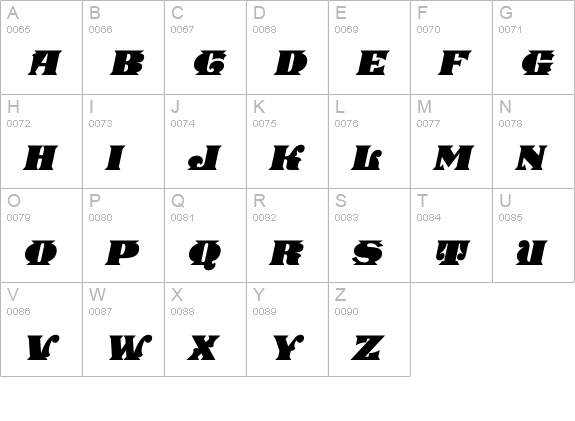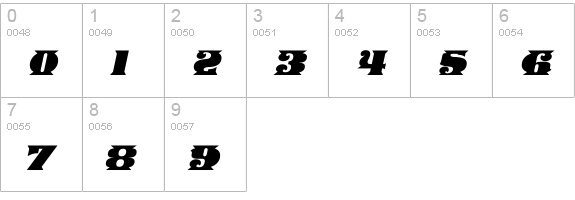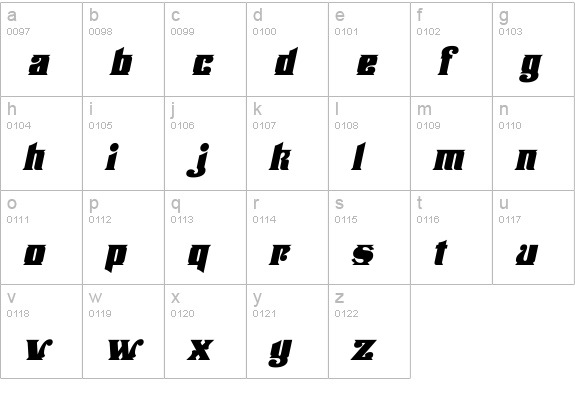
Stampede Italic Font Details
Stampede Italic is a distinctive, italic variant in the Stampede typeface family \xE2\x80\x94 well suited to design and typography projects.
Introducing Stampede Italic, a stunning font that adds a touch of elegance and sophistication to any text. This font is the perfect blend of modernity and traditional calligraphy, with its graceful curves and dynamic strokes. Stampede Italic exudes confidence and style, making it ideal for a wide range of design projects. With its unique and captivating letterforms, Stampede Italic demands attention and creates a lasting impression. Whether used in headlines, logos, invitations, or any other creative endeavor, this font will effortlessly elevate your designs to new heights. Its italicized slant adds a sense of dynamism, giving your text a sense of movement and energy. One of the best aspects of Stampede Italic is that it is freely available for download at FontsMarket.com. This means that you can easily access and utilize this exceptional font without any cost. With just a few clicks, you can enhance your design projects with the beauty and versatility of Stampede Italic. Whether you are a professional graphic designer, a student, or someone simply looking to add a touch of sophistication to your personal projects, Stampede Italic is the perfect choice. Its sleek and modern design, combined with its italicized presence, will make your text stand out from the crowd and leave a lasting impression. Download Stampede Italic today from FontsMarket.com and unlock a world of creative possibilities. Embrace the freedom of this extraordinary font and let your designs truly shine.